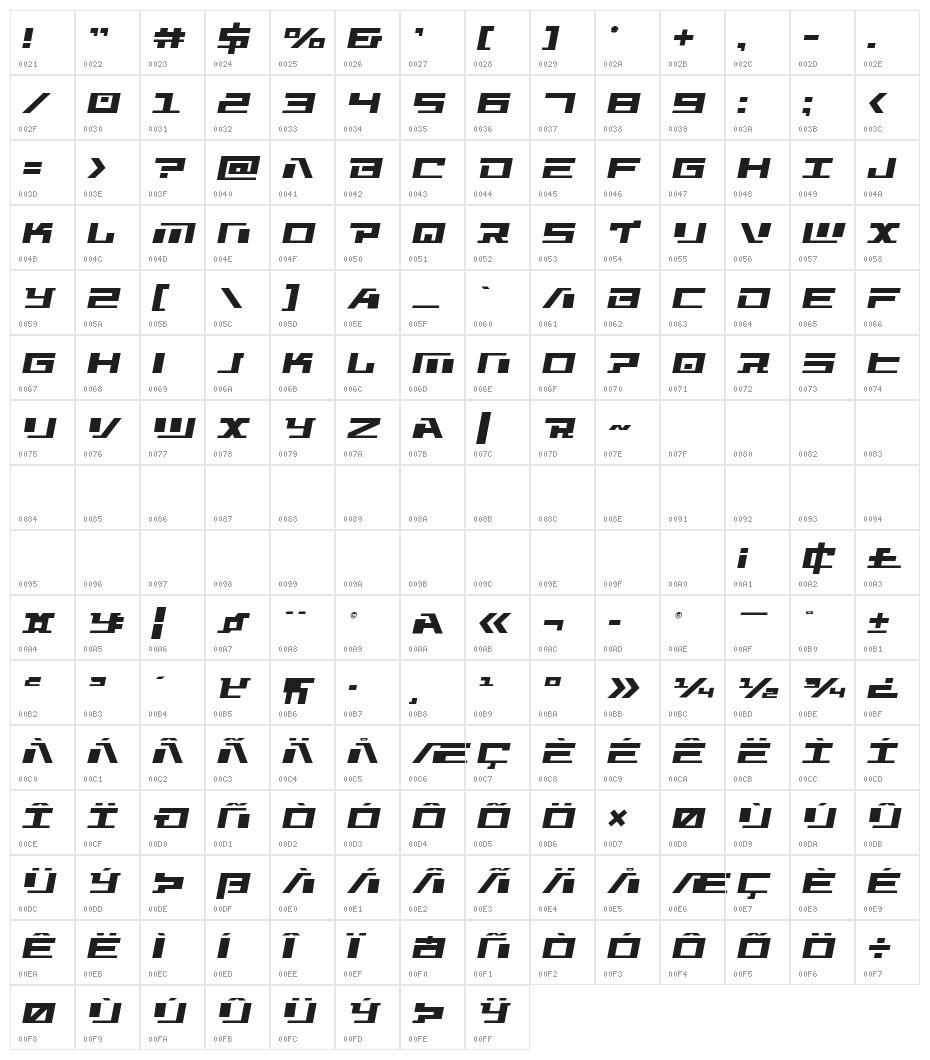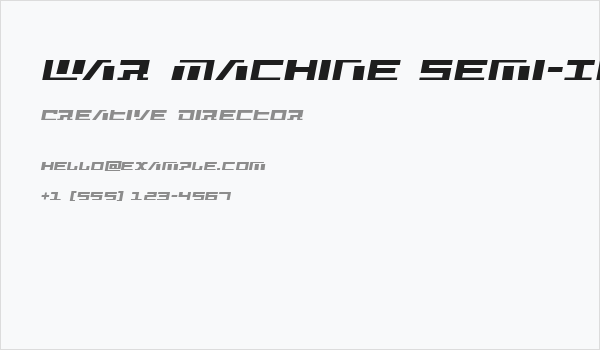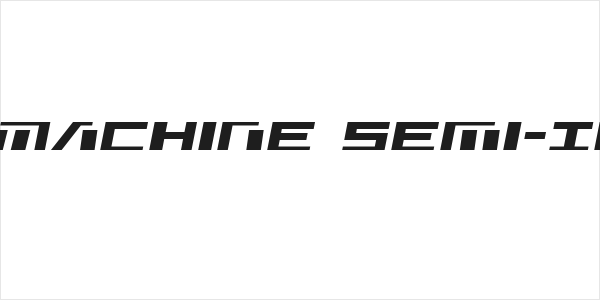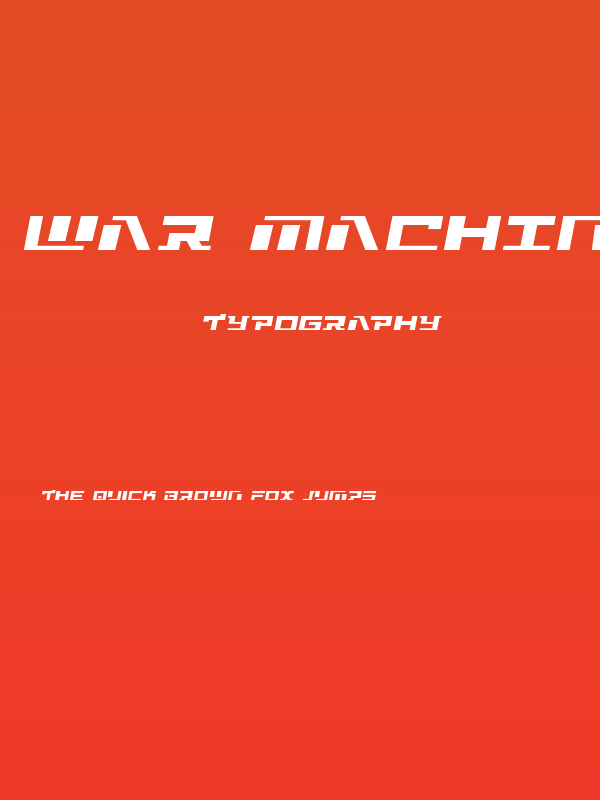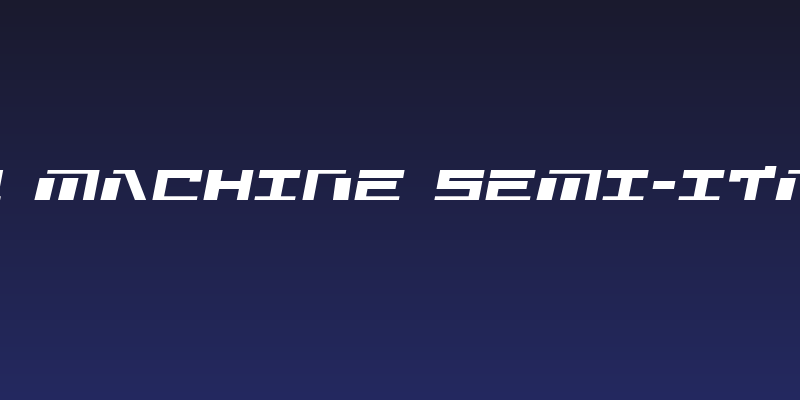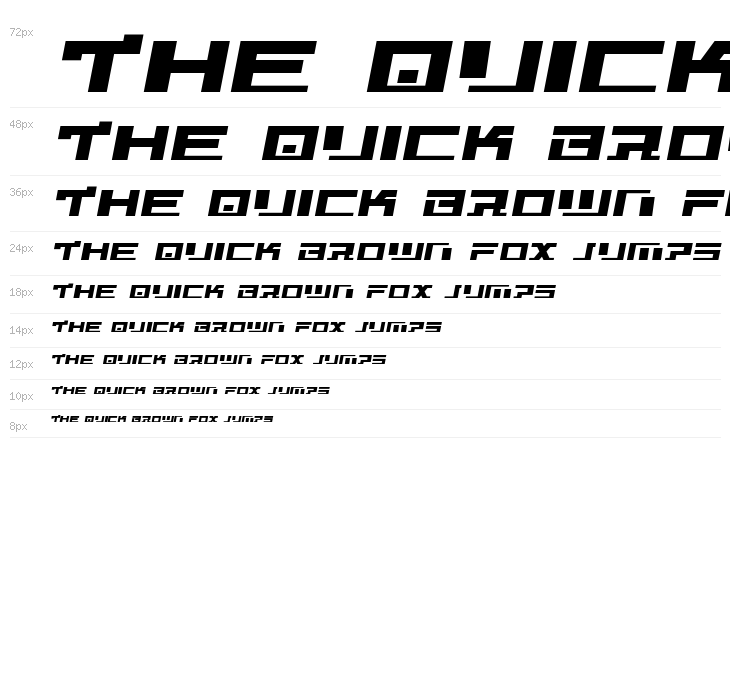
War Machine Semi-Italic Font
War Machine Semi-Italic Description
This font features a bold, angular design with a futuristic and mechanical aesthetic. The characters are constructed with sharp edges and a slight slant, giving them a dynamic and aggressive appearance. The uppercase and lowercase letters maintain a consistent style, with uniform stroke widths and geometric shapes. Numbers and special characters are designed to match the overall theme, ensuring a cohesive look across all elements. The font's unique style makes it stand out, suitable for projects that require a modern and edgy feel.
Overall StyleFuturistic
Proposed ProjectsIdeal for video game titles, tech branding, sci-fi movie posters, and sports team logos.